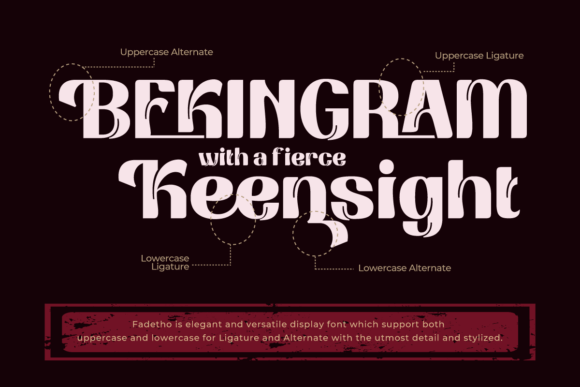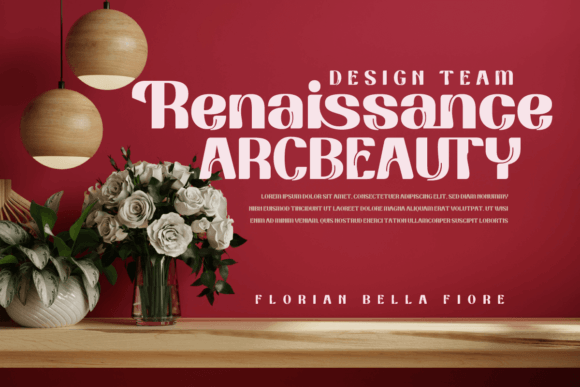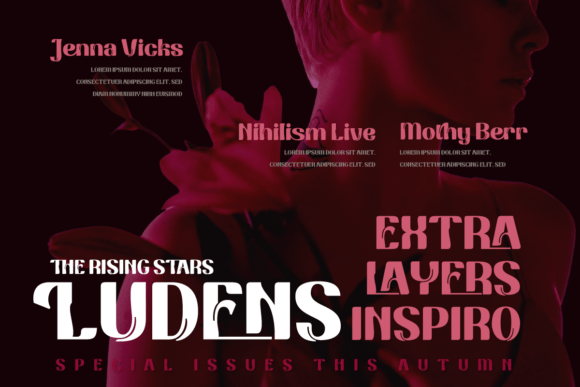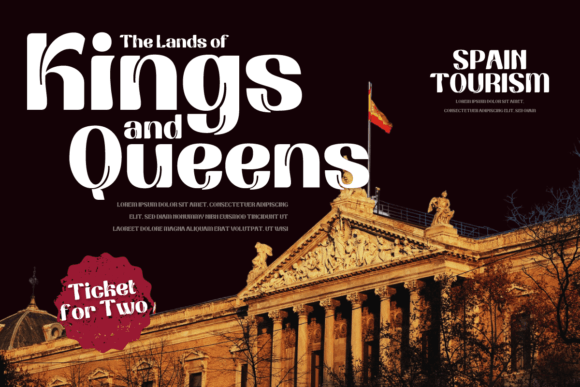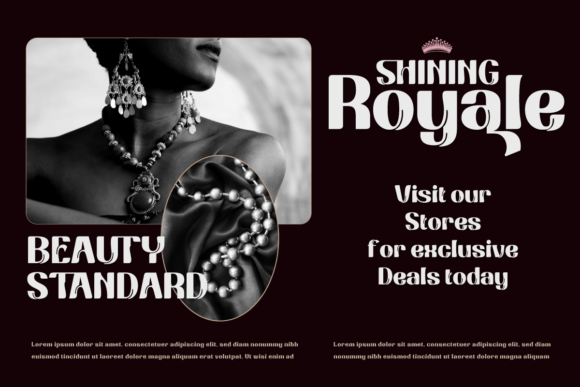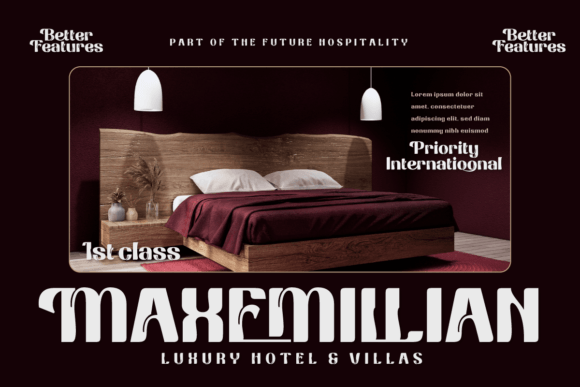
Discover the Elegance of Fadetho Font: Elevate Your Designs with Style
Have you ever been in the middle of a design project, and suddenly, you’re stuck on finding the perfect font? I recall a recent experience where I was working on a branding project for a luxury client, and I just couldn’t find a font that exuded the level of sophistication and elegance they required. That’s when I stumbled upon Fadetho Font, and it completely transformed my design. In this article, I’ll share my journey with Fadetho, its features, and how you can make the most of this beautiful display font in your own projects.
A Personal Encounter with Fadetho
As a designer, I understand the importance of finding the right typography to convey a brand’s message. When I first laid eyes on Fadetho, I was captivated by its relaxed yet elegant theme. It’s a display font that brings a touch of class and sophistication to any project. Whether you’re working on branding, packaging, or marketing materials, Fadetho has the potential to elevate your designs and leave a lasting impression.
An Honest Review of Fadetho Font
What I Love About Fadetho ✨
- ✅ Elegant and sophisticated design
- ✅ Available ligatures and alternates for unique typography
- ✅ PUA encoded for easy access to glyphs and ligatures
- ✅ Perfect for projects requiring a special, classy feel
- ⚠️ Limited use in body text due to its display font nature
- ⚠️ Some users might find the elegance too subtle for certain projects
The Backstory of Fadetho Font
While the origins of Fadetho Font remain somewhat mysterious, it’s clear that the designer aimed to create a font that embodies elegance and sophistication. The result is a beautiful display font that adds a touch of class to any project. Whether the designer intended for Fadetho to be a statement piece or a subtle complement to existing designs, it’s undoubtedly a versatile choice for creatives.
Q: Is Fadetho suitable for body text?
A: While Fadetho is primarily designed as a display font, its elegance and readability make it suitable for short paragraphs of body text. However, for longer texts, a more traditional body font might be more appropriate.
Q: How do I access the ligatures and alternates in Fadetho?
With Fadetho Font, you can add an exclusive touch to your designs and elevate your typography to new heights. Its elegant style, ligatures, and alternates make it the perfect choice for designers, crafters, and creative hobbyists looking to create stunning and classy looks. Explore the possibilities with Fadetho and let its beauty inspire your creations.